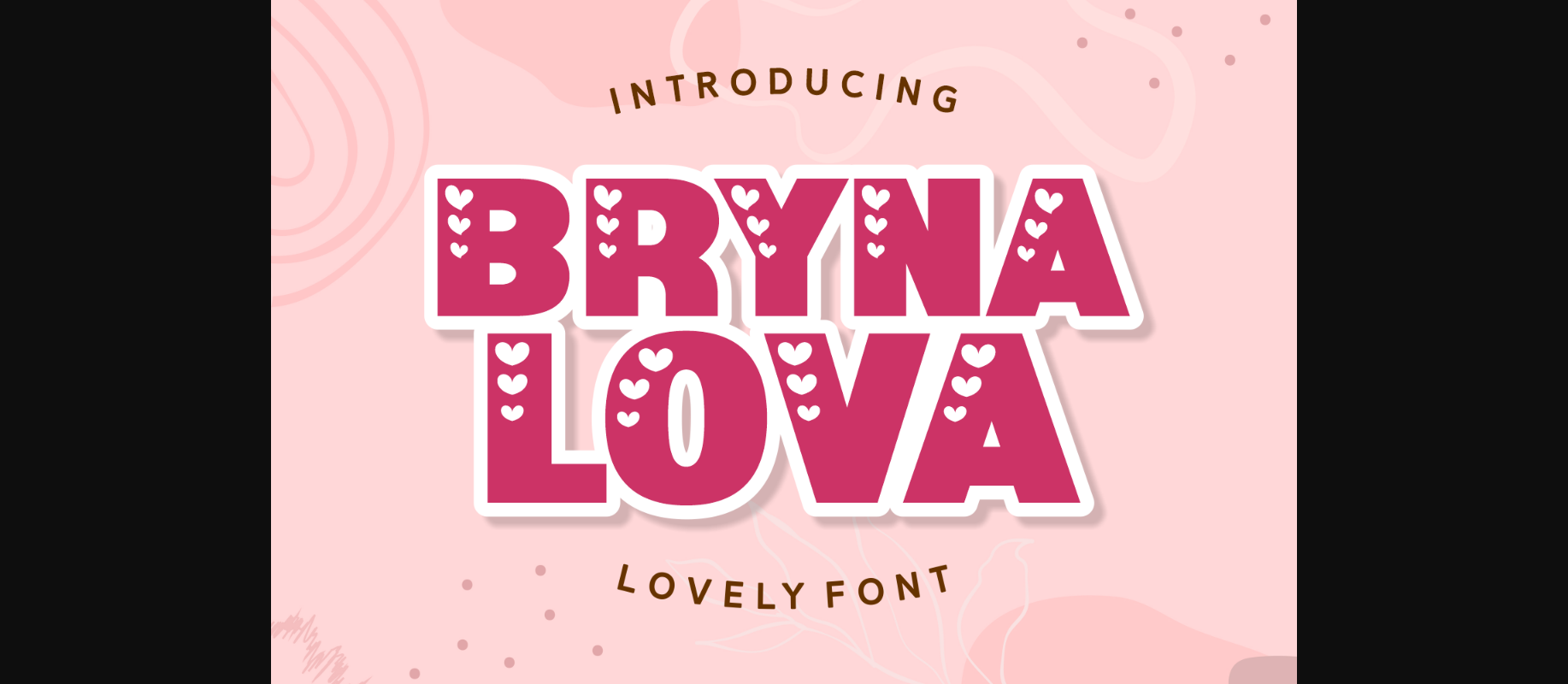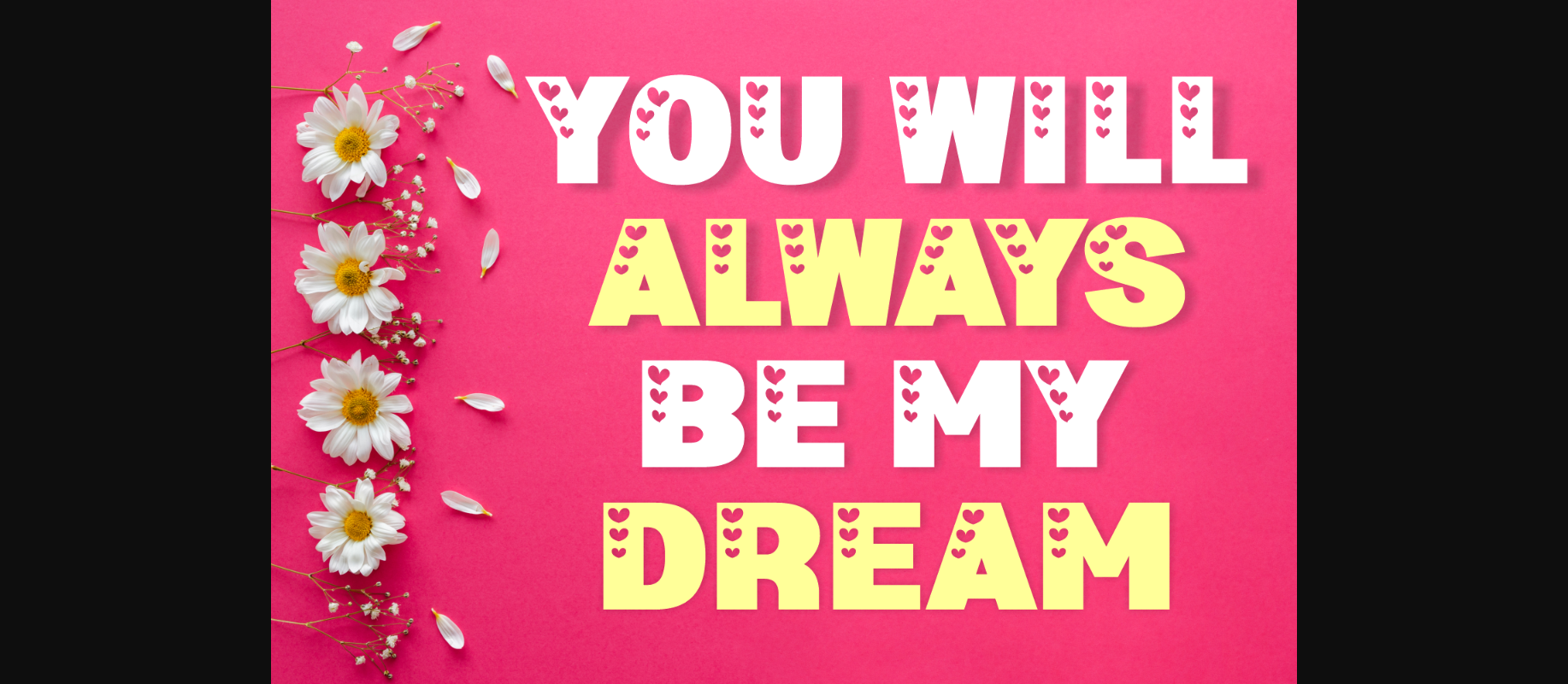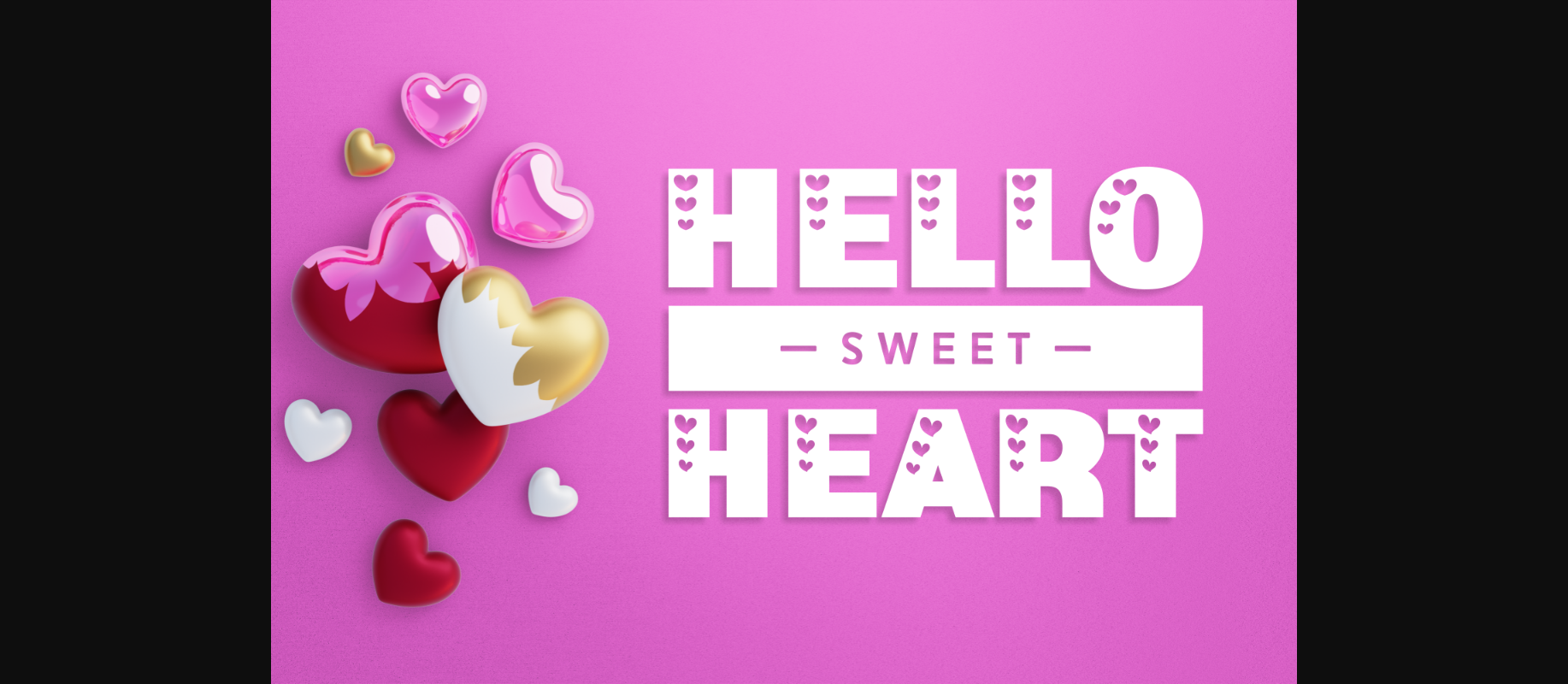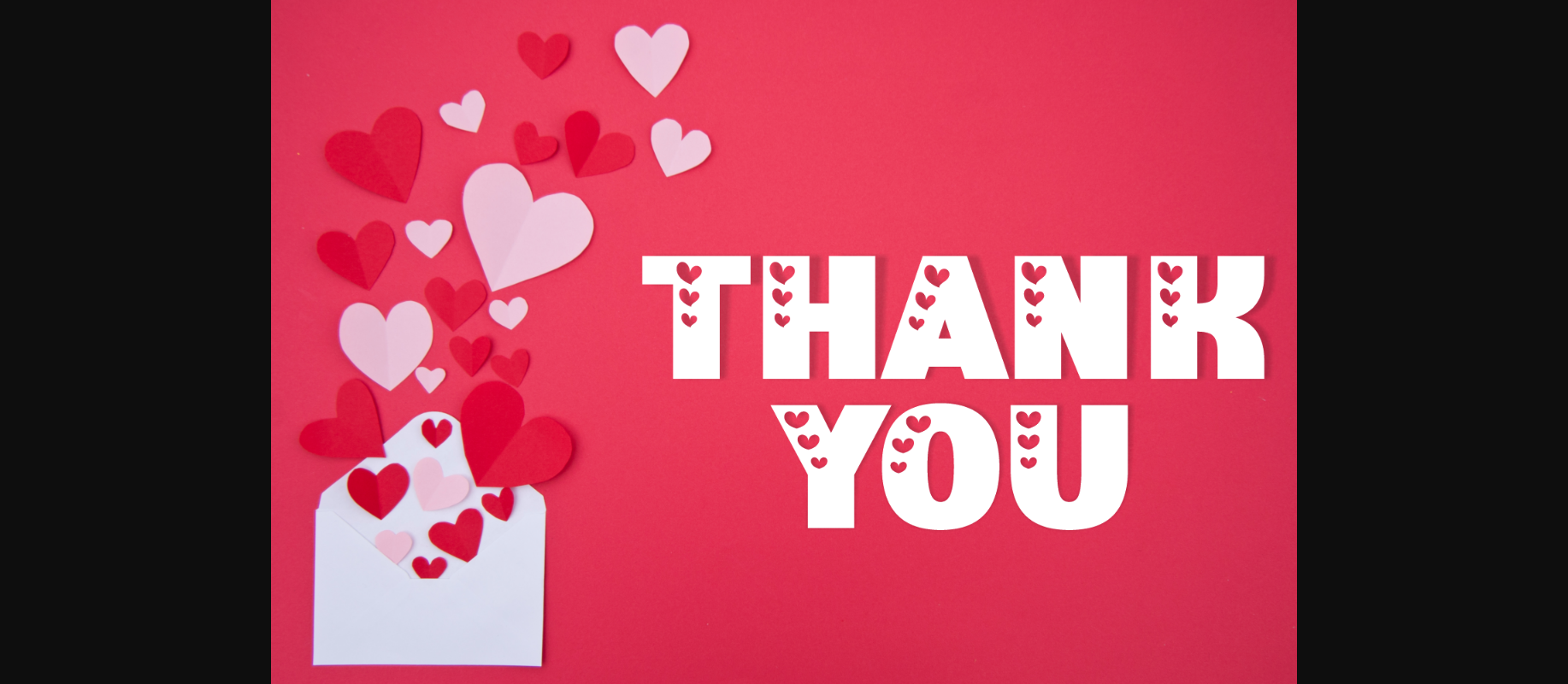
Bryna Lova Font
About Bryna Lova Font
Bryna Lova is a lovely decorative font that you can use for Valentine cards, wedding designs, packaging and labels, art prints, quotes, and more. This character set features little hearts with thick lines.